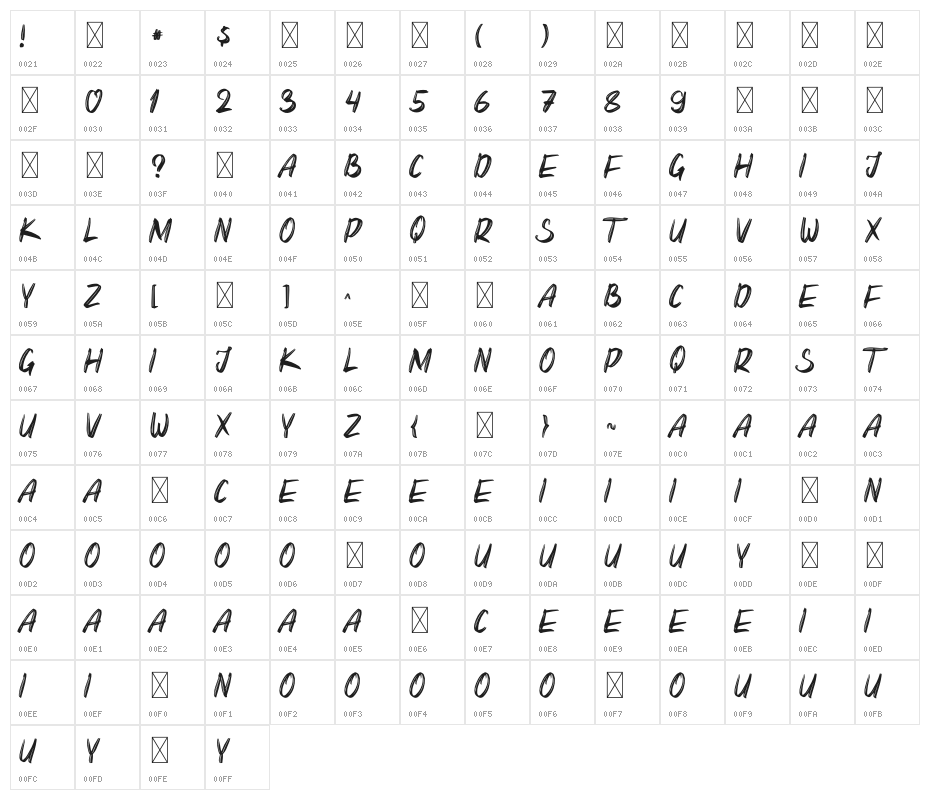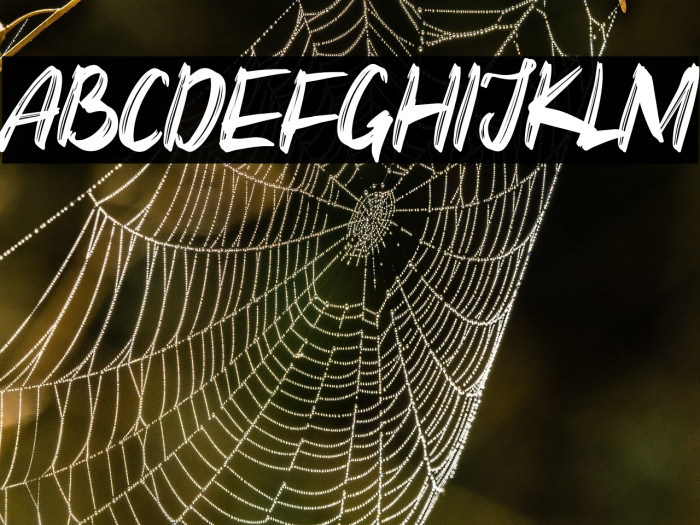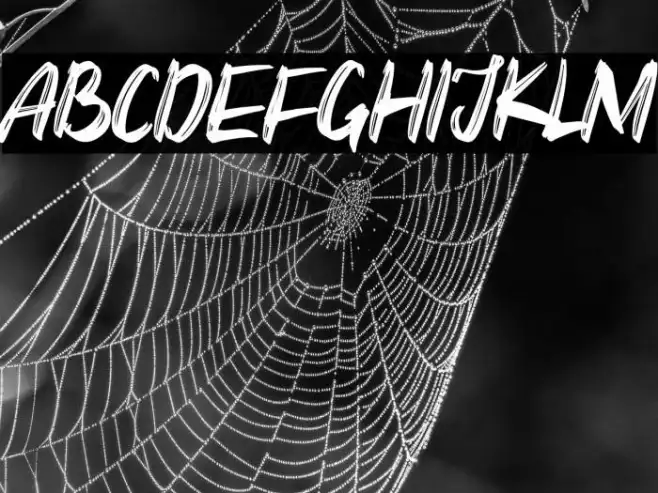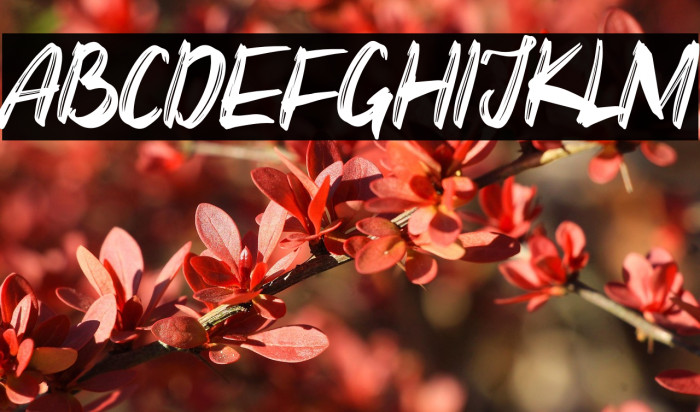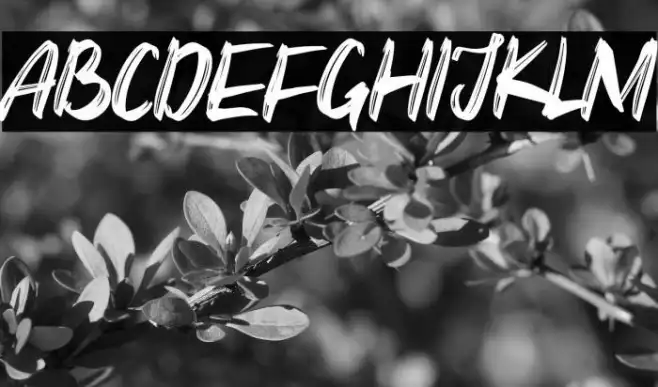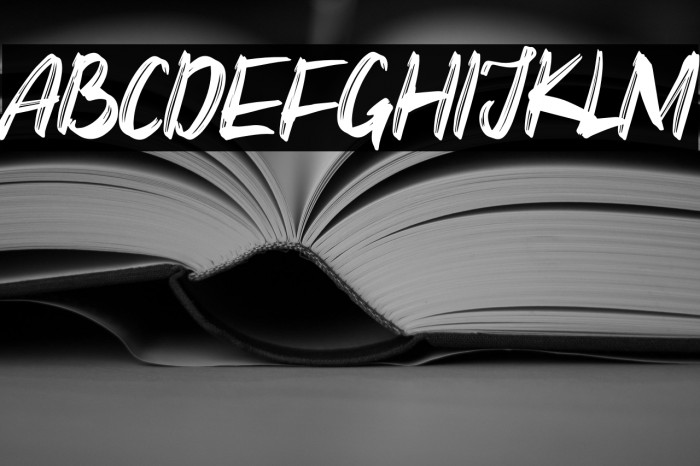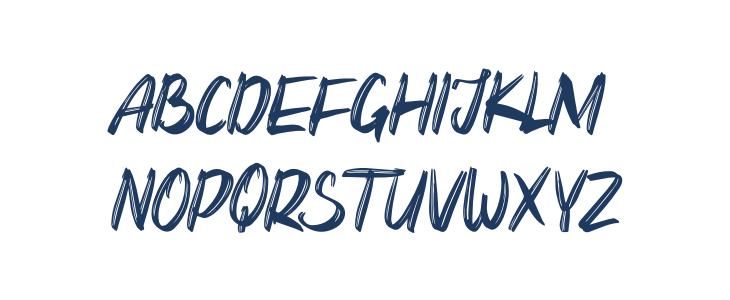
Arizona Font
Arizona Description
This font features a bold and dynamic brush script style, characterized by its energetic and flowing strokes. The letters have a hand-drawn appearance, with varying thickness that adds a sense of movement and spontaneity. The uppercase and lowercase letters maintain a consistent style, with a slight slant that enhances the casual and informal feel. The numerals are equally expressive, matching the overall aesthetic of the alphabet. This font is ideal for projects that require a personal touch, such as invitations, posters, and branding materials. Its unique style makes it stand out, capturing attention with its artistic flair.
| Use Case | Logos, Headlines |
| Proposed Projects | Ideal for invitations, posters, and branding materials that require a personal touch. |